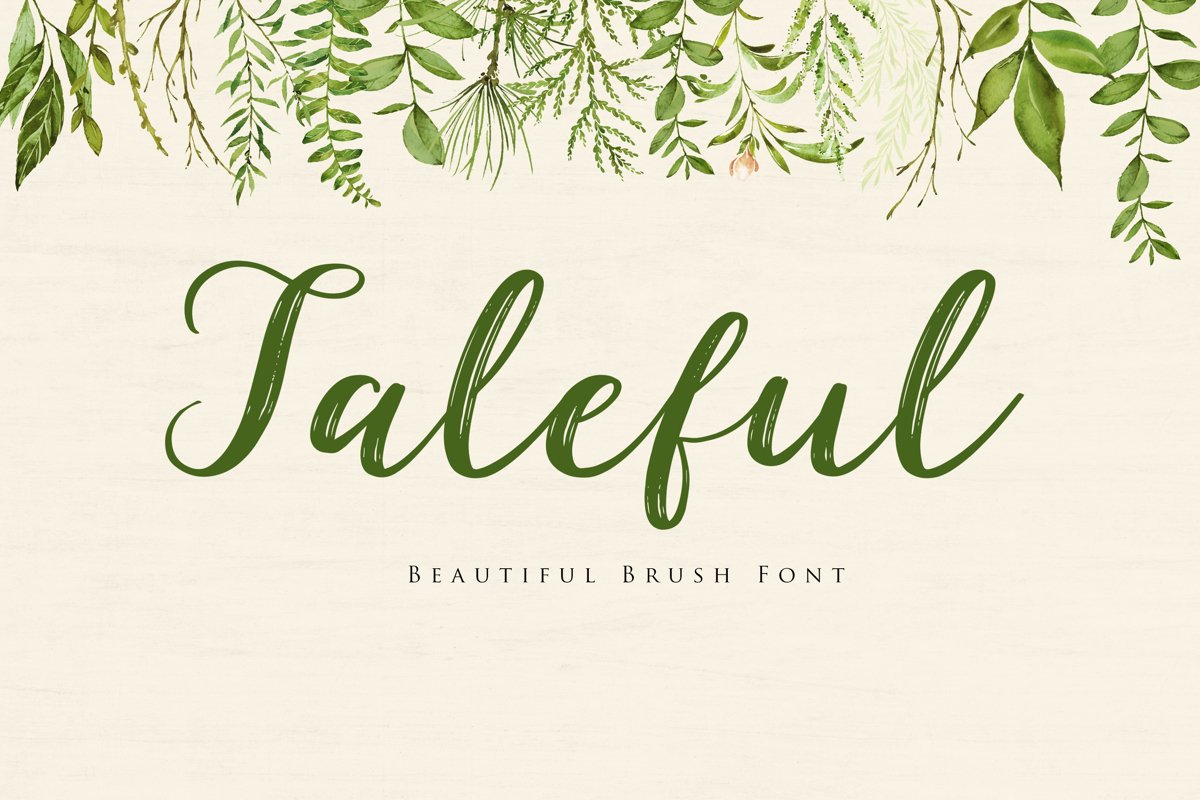
“Taleful” is a beautiful brush script font with texture and adorable touch. It is perfect for branding, event invites, lovely Instagram posts. “Taleful” includes full set of charming uppercase and lowercase international letters, numerals, and giving realistic hand-lettered style.WHAT YOU GET: